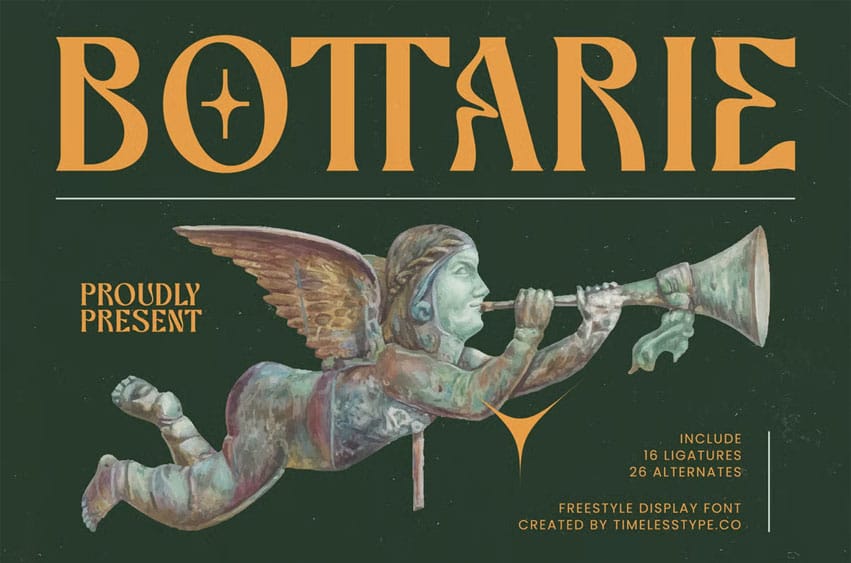
Bottarie Font is a vintage-inspired freestyle display font crafted with artistic character forms, expressive curves, and ornamental strokes. Its unique letterflow brings a blend of classical charm and handcrafted personality, making it perfect for editorial layouts, antique posters, heritage branding, artisan product labels, book covers, decorative signage, and expressive creative projects.
Featuring 16 ligatures and 26 alternates, Bottarie offers flexible stylistic variations that allow designers to build elegant headlines with a nostalgic, handcrafted touch. The font’s organic structure and sculpted aesthetic evoke classical sculpture, Renaissance textures, and early print-era personality.
Whether you’re designing thematic artwork, artisan packaging, retro-inspired logos, or expressive typographic compositions, Bottarie brings refined storytelling and vintage artistry into every piece.